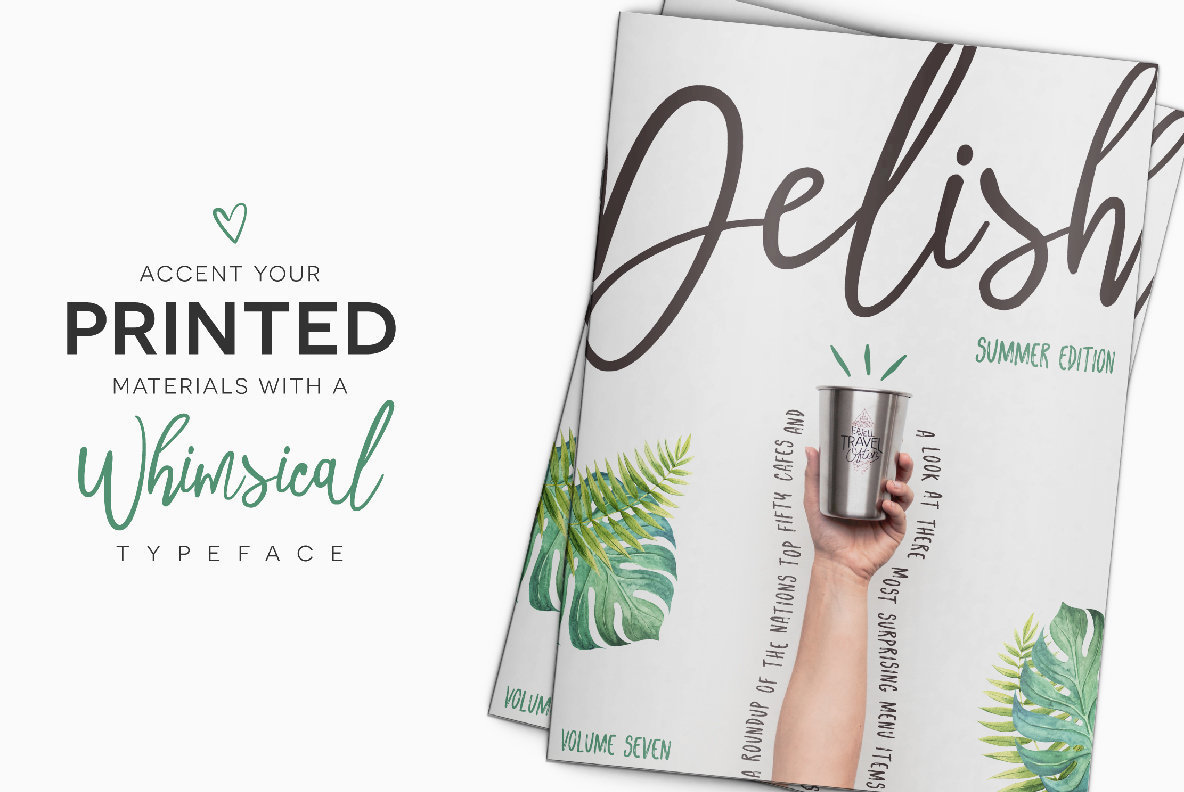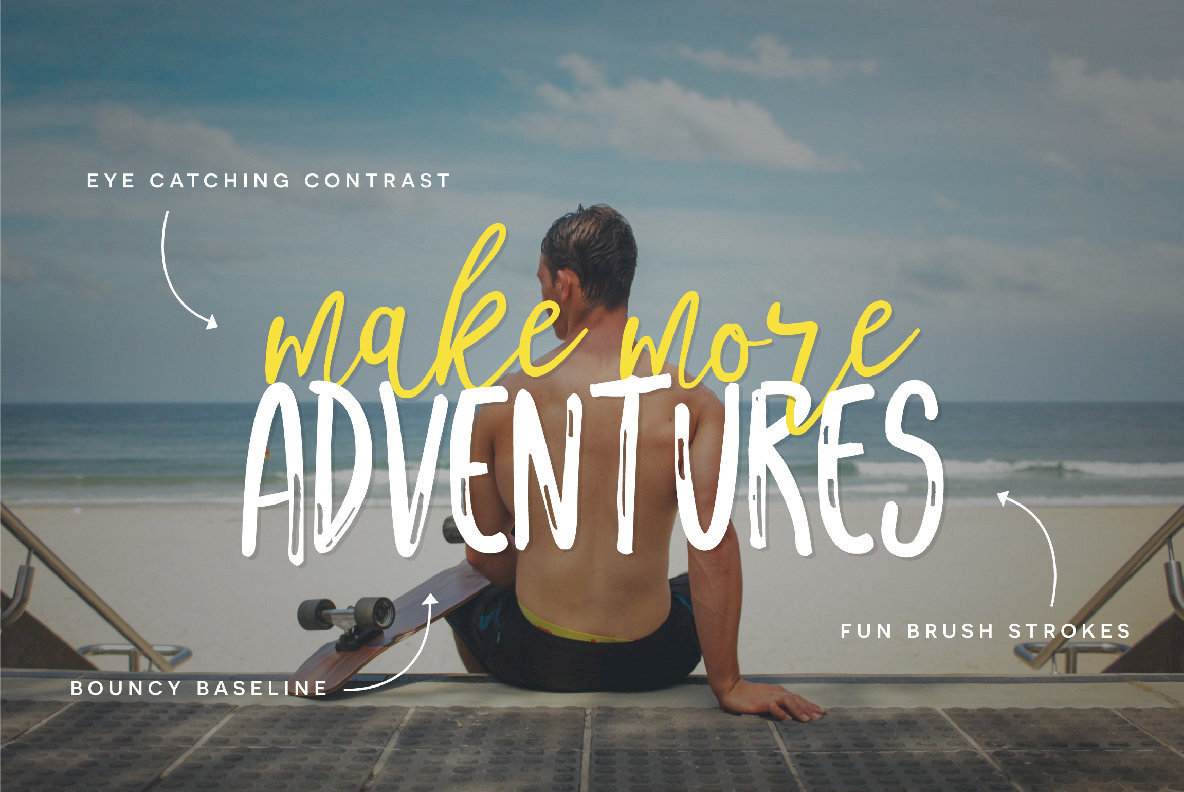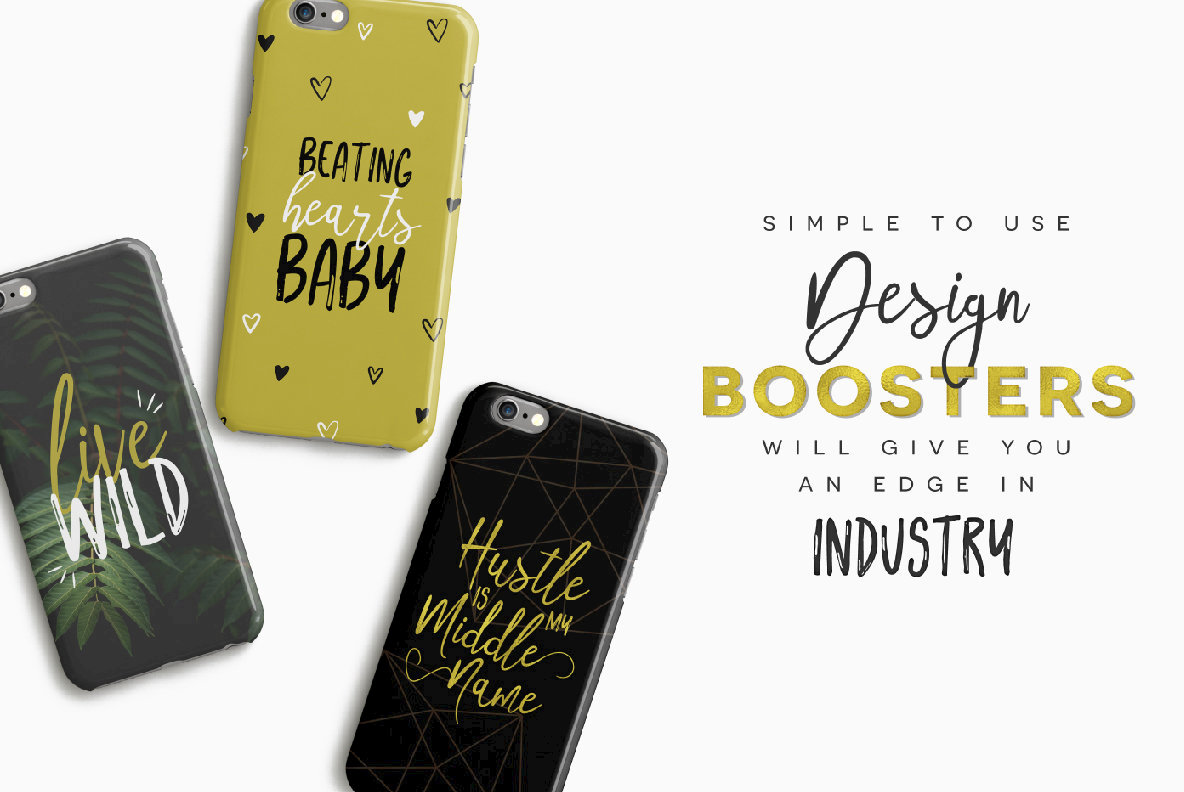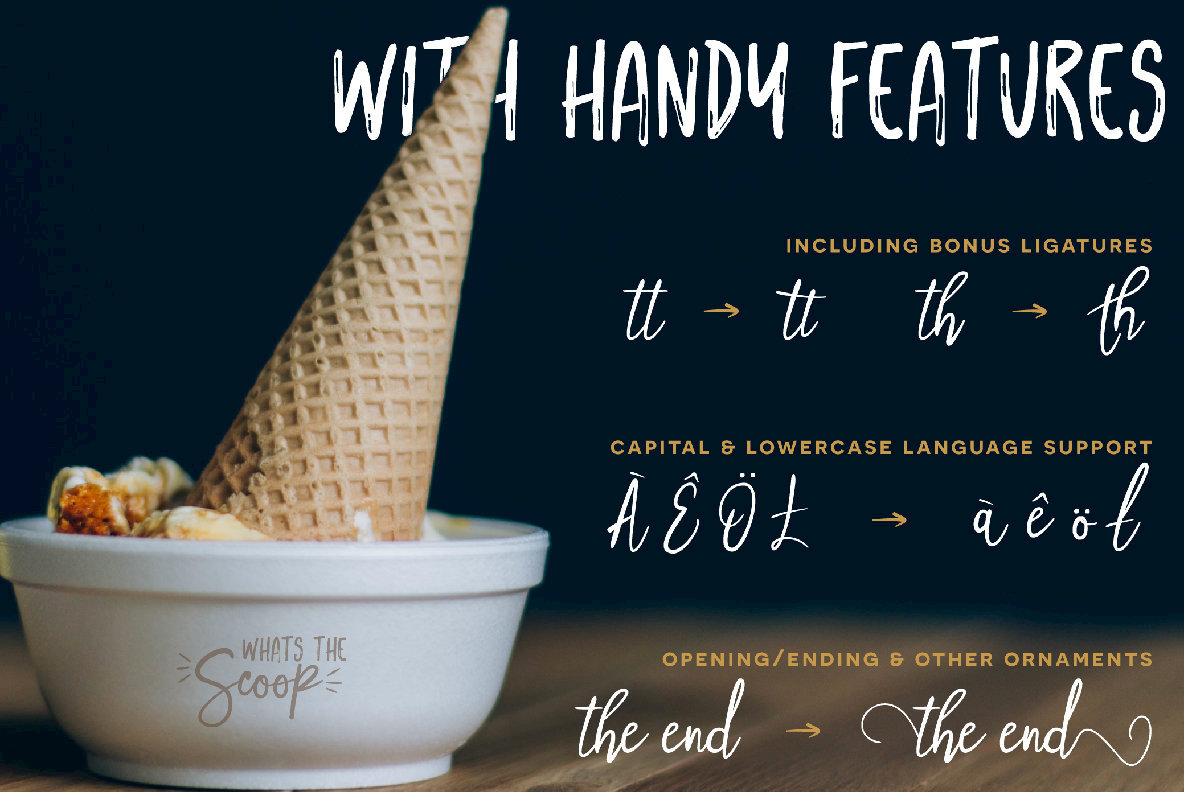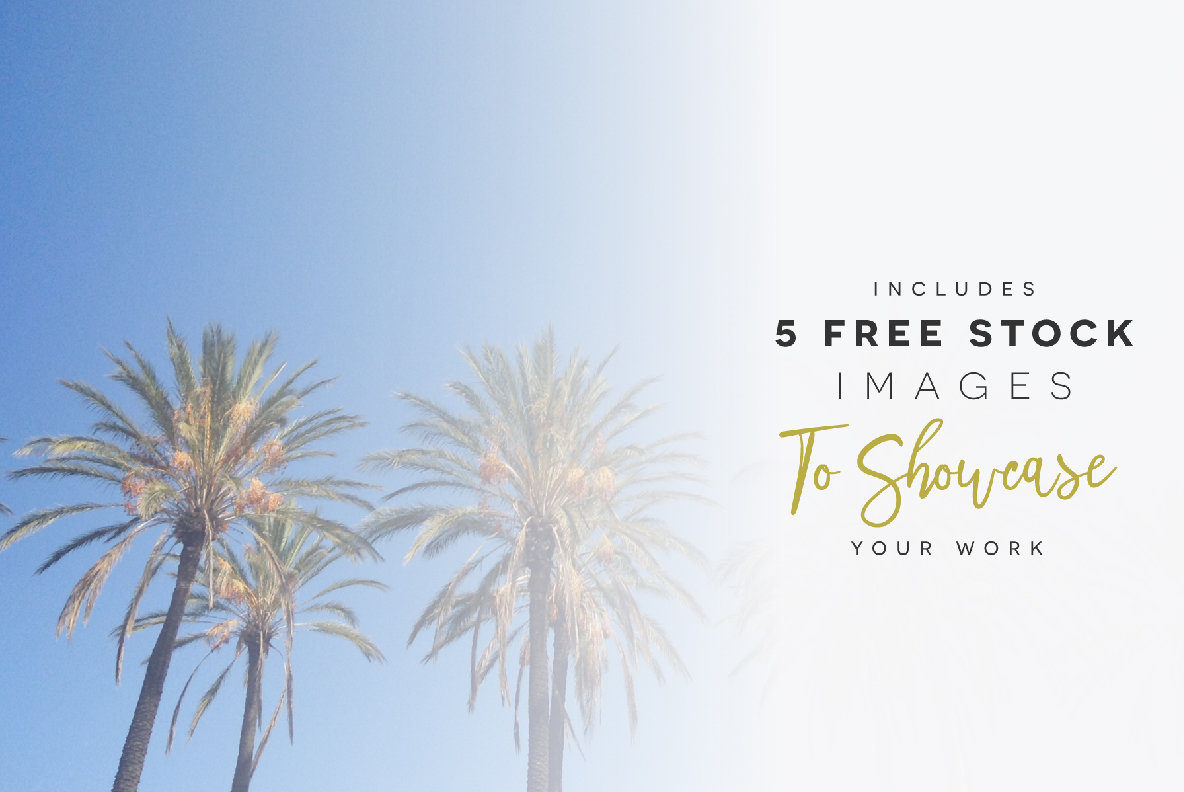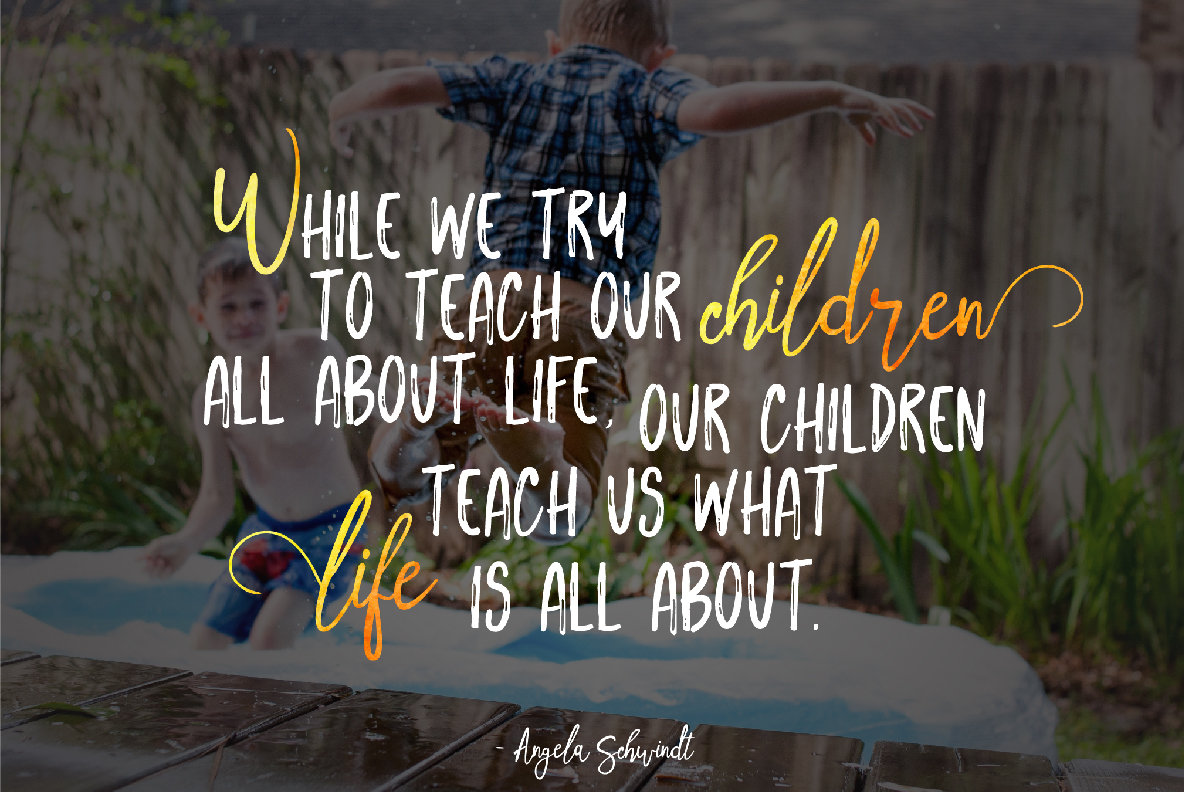
Forever Summer Font
Forever Summer is a fun loving font duo that couples sexy script with playful sans serif! It's marker brush strokes give it a gritty and eye popping aesthetic perfect for prints, greeting cards, typography quotes, branding, and more! Plus add the The Bonus Ornaments to your designs and quickly catch your customers eye! Use it in ink, watercolor, or gold foil based designs or all on its own! Handcrafted fonts have become all the rage. Pick up this Font Duo package and get ready to take over the design world by storm!